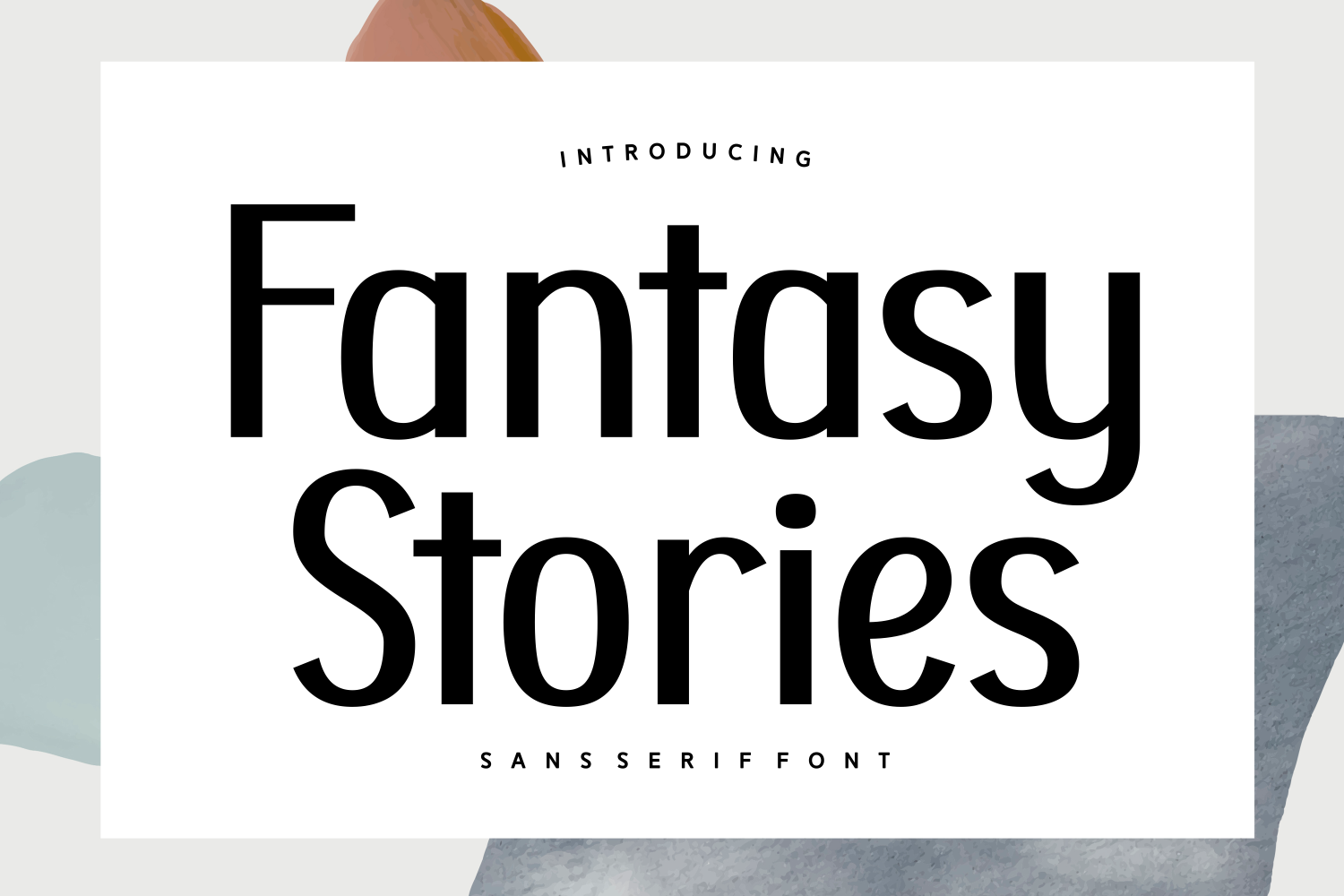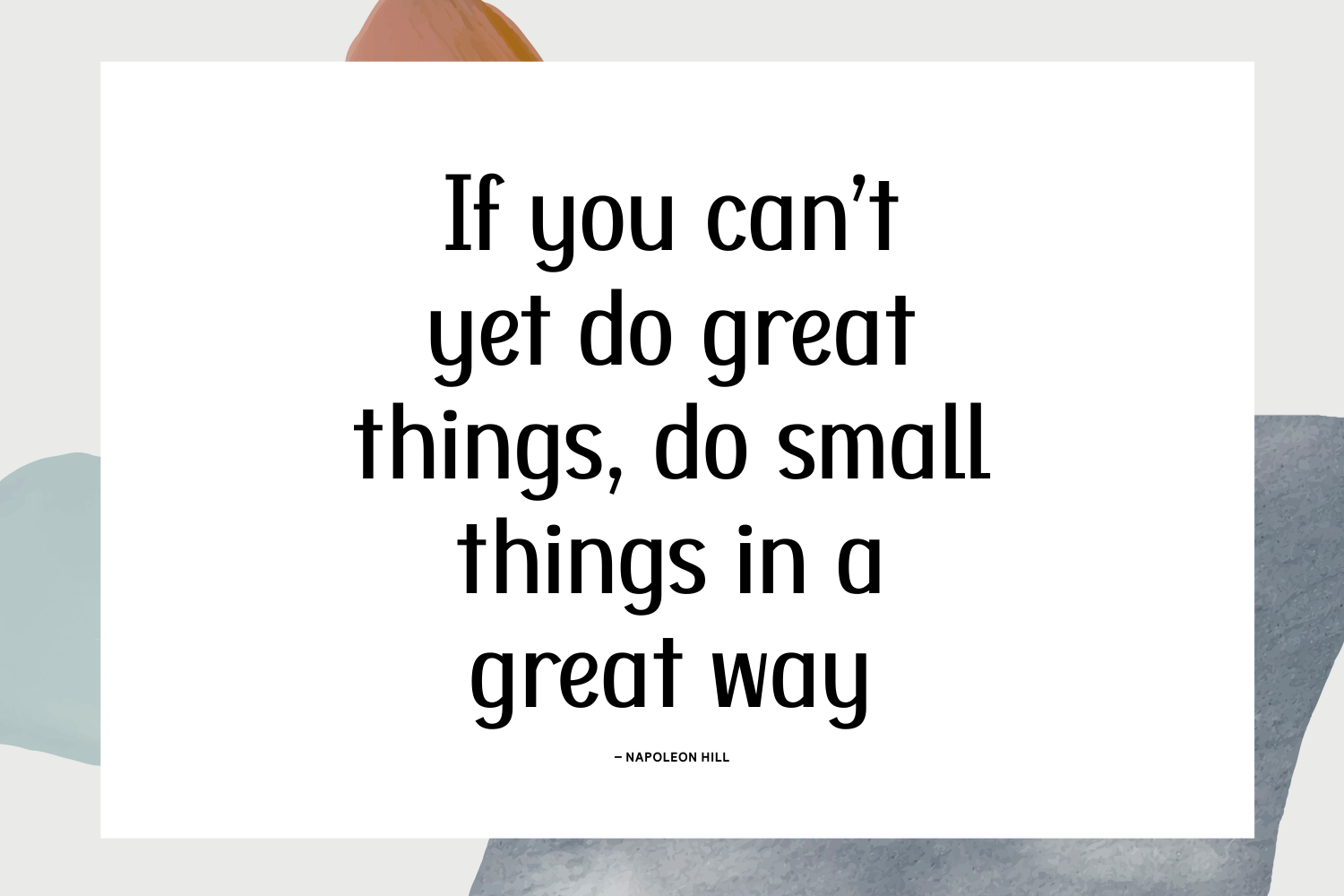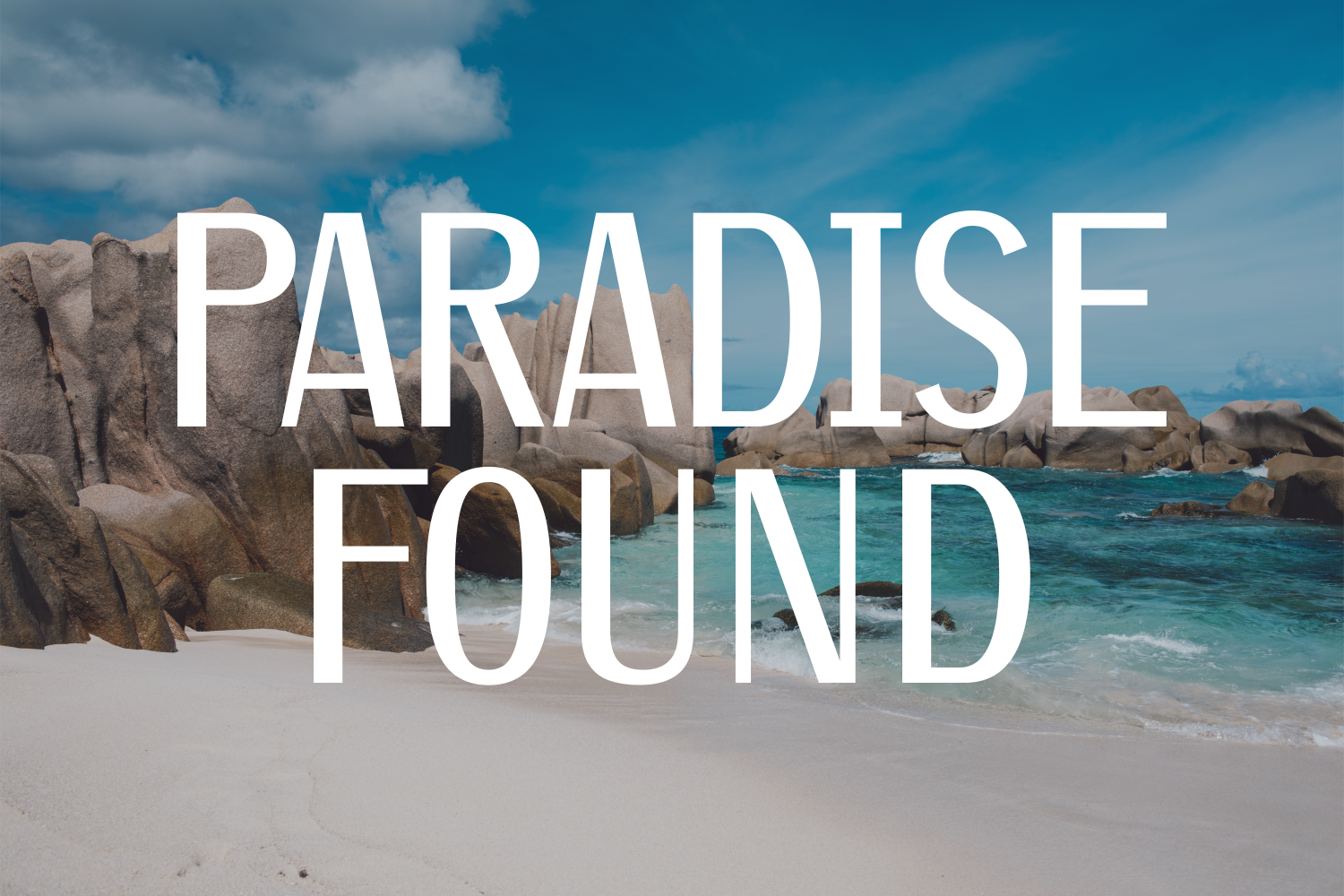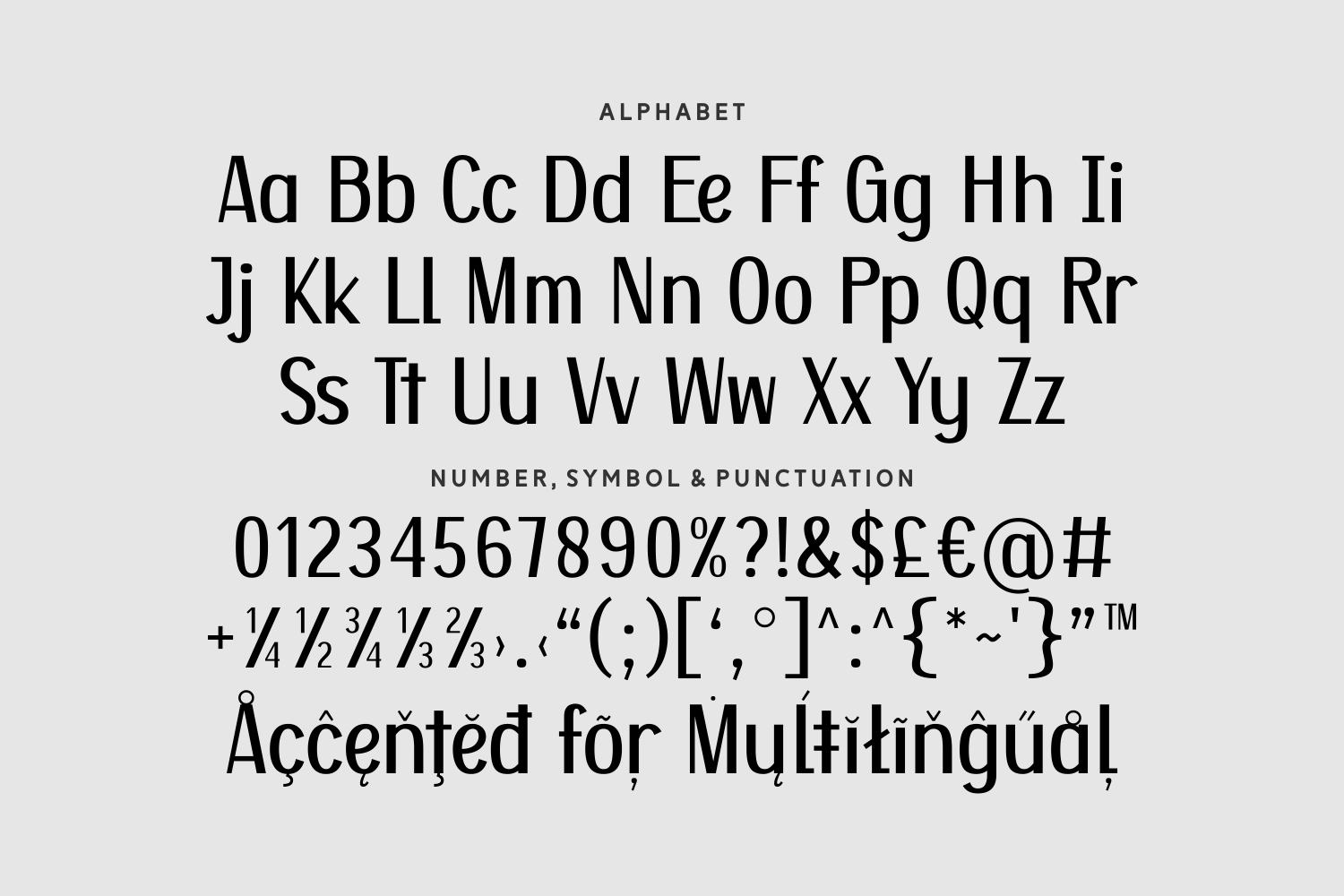
Fantasy Stories
Fantasy Stories is a charming sans-serif font with a slightly retro twist and quirky elegance. With subtle curves and playful proportions, it's a great choice for packaging, creative branding, lifestyle blogs, or anything with a whimsical personality.